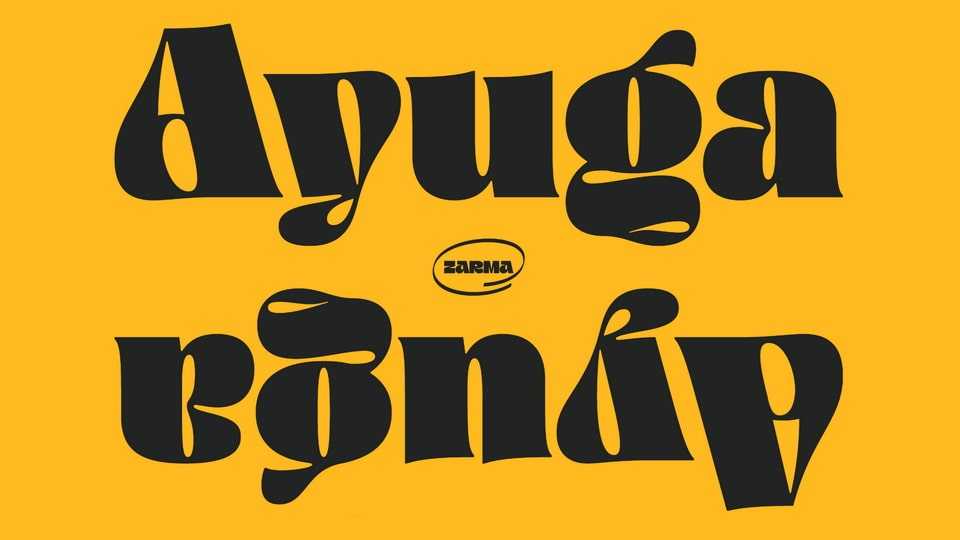
Download Ayuga font, a display typeface inspired by the retro and psychedelic typefaces out there. Ayuga is definitely bold and thick enough to make your design stand out from the crowd.
Designer: Zarma Type Foundry